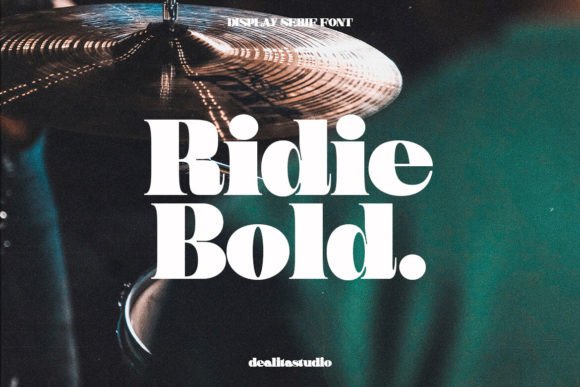
Introducing Ridie Font - Unleash Your Design Passion with Elegance and Playfulness
Immerse yourself in the world of typography with Ridie Font, a captivating display typeface that radiates boldness, fun, and playfulness. Created by dealitastudio, this font is a visual masterpiece tailored for those seeking a touch of elegance in their designs.
Ridie Font's striking personality is sure to captivate your audience, leaving a lasting impression. With its bold and playful nature, this font is perfect for adding a pop of style and personality to your creative projects. Whether you're crafting a captivating logo, designing an eye-catching flyer, or creating a unique website, Ridie Font will be your perfect companion.
Be it fashion, lifestyle, or any other industry, Ridie Font's versatility shines through. Its elegant curves and playful strokes add a touch of sophistication to any design, making it suitable for a wide range of projects. Let your creativity soar as you explore the endless possibilities with Ridie Font.
Indulge in the seamless flow of Ridie Font's characters, meticulously crafted to ensure readability and visual appeal. This font is a dream to work with, allowing you to create stunning designs effortlessly. Experience the joy of seamless typography as you bring your creative visions to life.
Embrace the power of Ridie Font and elevate your designs to new heights. Its bold and playful nature is sure to leave an unforgettable mark on your audience, making your creative projects stand out from the crowd. Join the league of creative professionals who have discovered the magic of Ridie Font and let your designs speak volumes.